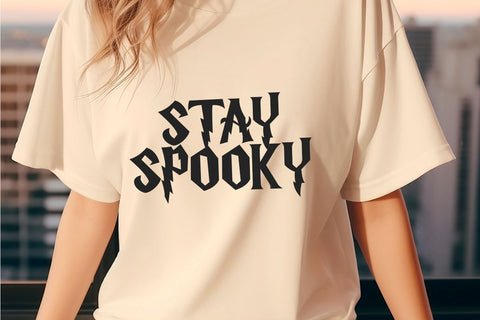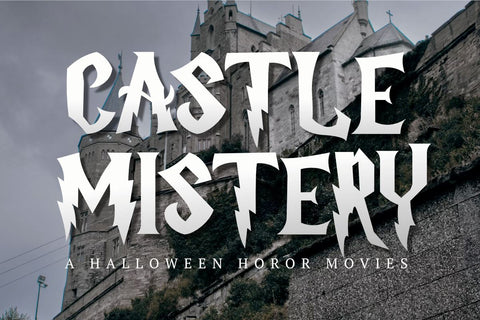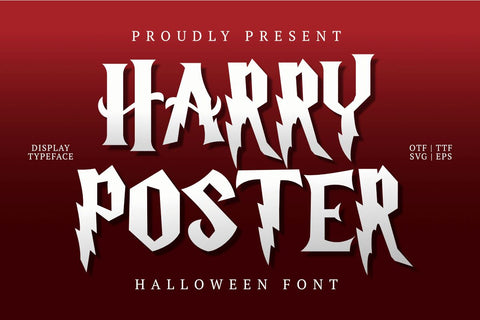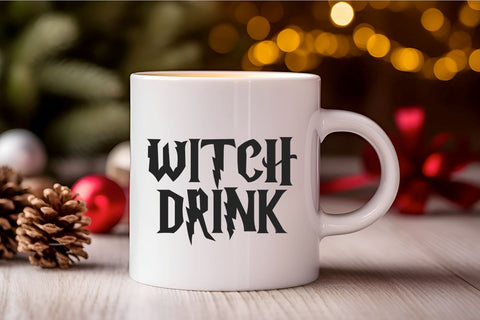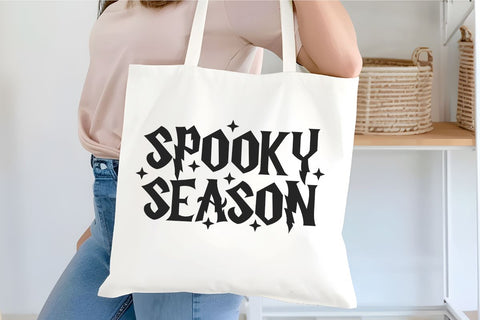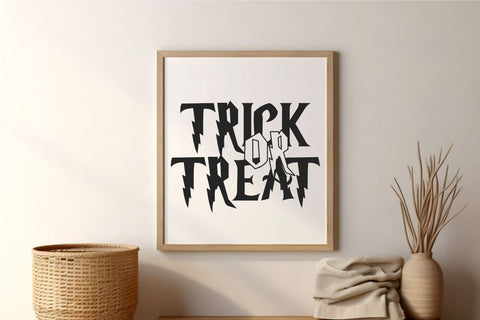
Harry Poster - Halloween Font
Harry Poster is a spooky halloween font. font inspired by metal band typography and Halloween posters. This font is suitable for creative needs such as stickers, wall art, apparel, Cricut, cutting machines, labels, logos, posters, key chains, hoodies, print on demand, and many other ideas. Apart from that, this font is also suitable for book covers or film titles. You can also use it for various creative projects that have a mystical, horror, spooky and Halloween theme.